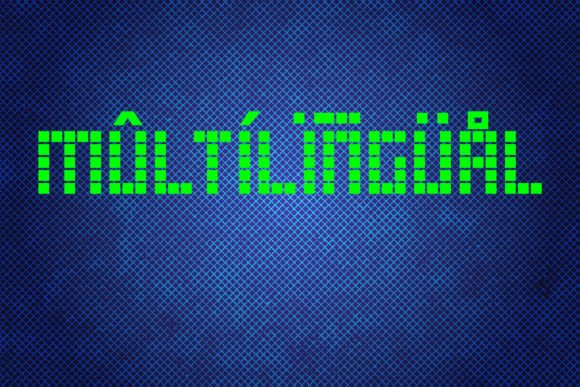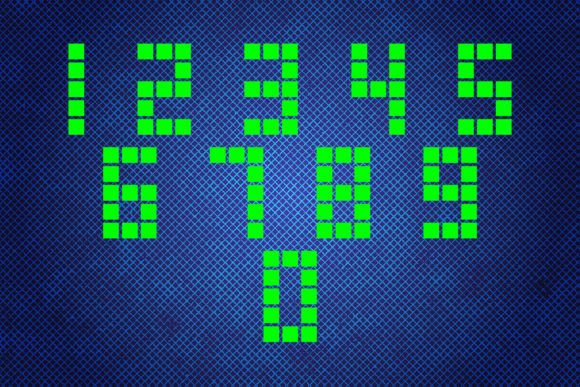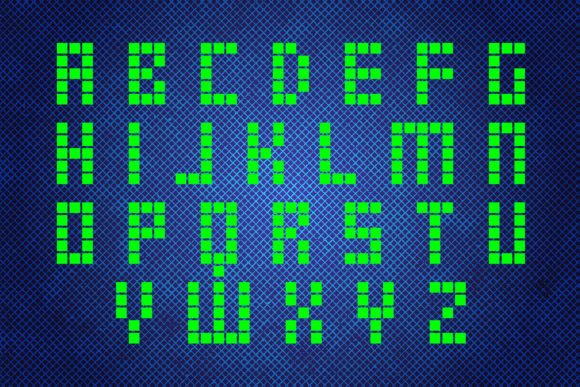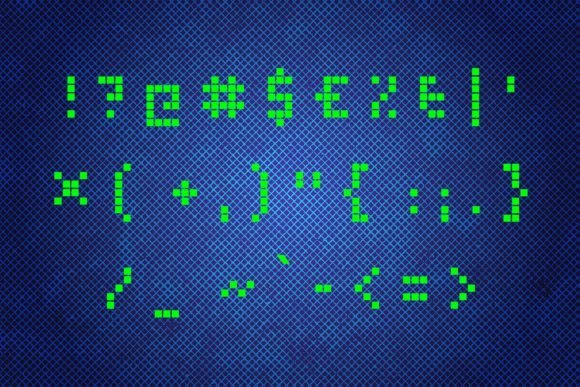
Introducing Code Million Font: Elevate Your Futuristic Projects with a Unique Display Font
In the realm of digital design, typography plays a pivotal role in conveying messages, setting tones, and creating visual impacts. Among the myriad of fonts available, finding that one which stands out and adds a futuristic flair to your projects can be a daunting task. This is where Code Million Font comes into play, a unique and interesting display font designed to transform your futuristic projects into stunning visual experiences.
The Essence of Code Million Font
Code Million is not just another font; it’s a design statement. Its unique characteristics are tailored to add a futuristic and avant-garde feel to any project. Whether you’re working on a website, an app, a digital artwork, or even a presentation, Code Million Font is poised to leave a lasting impression on your audience. Its design elements are carefully crafted to embody a sense of innovation and forward-thinking, making it the perfect choice for designers and crafters looking to push the boundaries of digital aesthetics.
Key Features of Code Million Font
- Unique Design: Code Million boasts a one-of-a-kind design that sets it apart from more traditional fonts. Its futuristic appeal is undeniable, making it an excellent choice for projects that demand something out of the ordinary.
- Versatility: Despite its strong futuristic vibe, Code Million Font is surprisingly versatile. It can be used in a variety of contexts, from tech startups and digital art to futuristic event branding and beyond.
- Legibility: While it’s a display font and best used in larger sizes, Code Million maintains a high level of legibility, ensuring that your message is conveyed clearly and effectively.
- Customization: The font comes with a range of customization possibilities, allowing designers to adapt it to their specific needs and project requirements.
How to Use Code Million Font in Your Projects
- Pair it with Solids: For maximum impact, pair Code Million with solid backgrounds or geometric shapes. This contrast will enhance its futuristic appeal and make your design pop.
- Experiment with Sizes: While Code Million is designed as a display font, experimenting with different sizes can yield interesting effects. Use it sparingly for headings or go bold for a statement piece.
- Play with Colors: Don’t be afraid to experiment with bold and gradient colors. Code Million Font lends itself well to vibrant color schemes that can add depth and dynamism to your designs.
Why Designers and Crafters Love Code Million Font
Designers and crafters who have used Code Million Font in their projects rave about its ability to instantly elevate their work. Here are a few reasons why:
- Time-Saving: With Code Million, you can achieve a professional and futuristic look without spending hours on custom typography design.
- Consistency: Using a unique font like Code Million ensures consistency across your projects, helping to build a recognizable brand or aesthetic.
- Inspiration: Sometimes, all it takes is the right font to spark creativity. Code Million has inspired countless designers to explore new ideas and themes in their work.
Code Million Font is more than just a typeface; it’s a tool for creative expression. Its unique blend of futurism and versatility makes it an indispensable asset for designers and crafters looking to make a statement. Whether you’re embarking on a new project or looking to refresh your brand’s image, Code Million Font is sure to deliver impressive results. So why wait? Dive into the world of futuristic typography with Code Million and watch your designs come to life in ways you never thought possible.